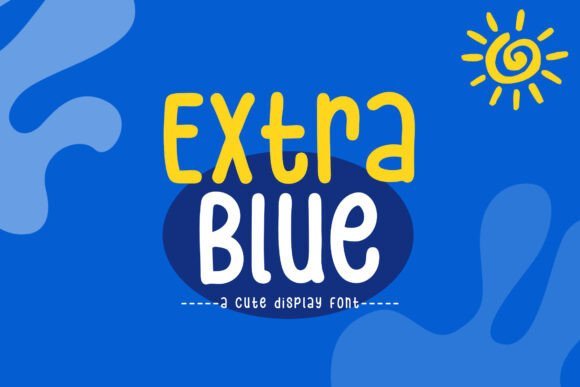
Discover Your Next Design Inspiration with Extra Blue Font
You know that feeling when you’re brainstorming ideas and suddenly, a spark of creativity hits you? The world around you transforms into a canvas of endless possibilities, and you can’t wait to bring your vision to life. For designers, this moment is what drives us to create something truly special. And, that’s exactly what we’re excited to share with you – a font that will elevate your designs to new heights.
Introducing Extra Blue Font, a modern and cute handwritten font designed to make your projects stand out. Whether you’re creating posters, logos, magazines, or book covers, this font is perfect for adding a touch of personality to your work. With its versatility and charm, Extra Blue Font is a valuable addition to any designer’s toolkit.
Key Features of Extra Bold Font
- Font Style: Extra bold, with a unique characteristic of being highly legible even at small font sizes
- Character Set: Supports a wide range of languages, including Latin, Cyrillic, Greek, and many more
- Kerning and Ligatures: Optimized for improved readability, with advanced kerning and ligature features
- Font Weight and Width: Offers a range of font weights, from light to extra bold, with variable width options
Extra Blue Font Review
Overall, I’m really impressed with Extra Blue Font ✨. The designers have done an excellent job of creating a unique and eye-catching typeface. The font is perfect for adding a pop of color to your designs, and the bold lines and curves give it a fun, energetic feel.
- ✨ Unique color palette: The Extra Blue Font offers a range of blue shades that are both modern and stylish.
- ✨ Versatile: This font can be used for a variety of design projects, from logos and branding to digital graphics and print materials.
- ✨ High-quality vectors: The font files are clean, crisp, and well-optimized, making them perfect for both small and large-scale designs.
However, there are a few limitations to consider ⚠️. The font may not be the best choice for large blocks of text, as it can be a bit overwhelming. Additionally, the font doesn’t include a lot of language support, so it may not be suitable for international projects.
Despite its limitations, I think Extra Blue Font is a fantastic addition to any designer’s toolkit. With its unique style and high-quality vectors, it’s perfect for adding a touch of personality to your designs. Just be sure to use it thoughtfully and in moderation.
The Extra Blue Font is ideal for creating eye-catching headlines and titles. It’s also great for adding a touch of sophistication to your designs. To get the most out of this font, use it sparingly and in combination with other fonts to create visual interest.
Montreal is a sans-serif font with a strong, urban feel. It’s ideal for use in headings and titles where a bold, modern look is needed. In comparison to Extra Blue Font, Montserrat is more geometric and has a stronger, more modern aesthetic, but lacks the elegance and sophistication of Extra Blue Font.